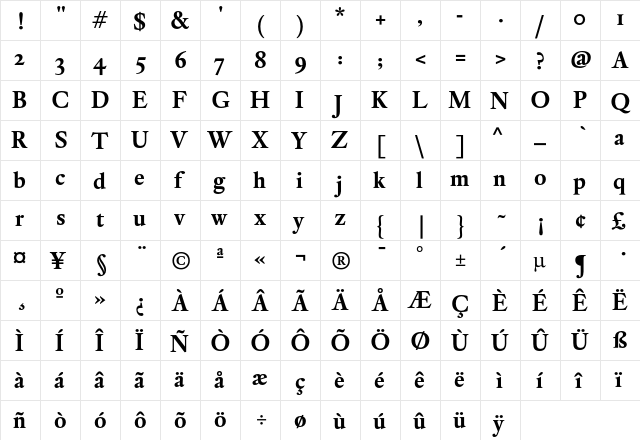
DTL Elzevir ST Bold
Design Context for DTL Elzevir Typeface
DTL Elzevir is a composed and adaptable typeface that performs quietly and consistently across a wide range of design contexts. Its bold stroke weight gives it real presence on the page.